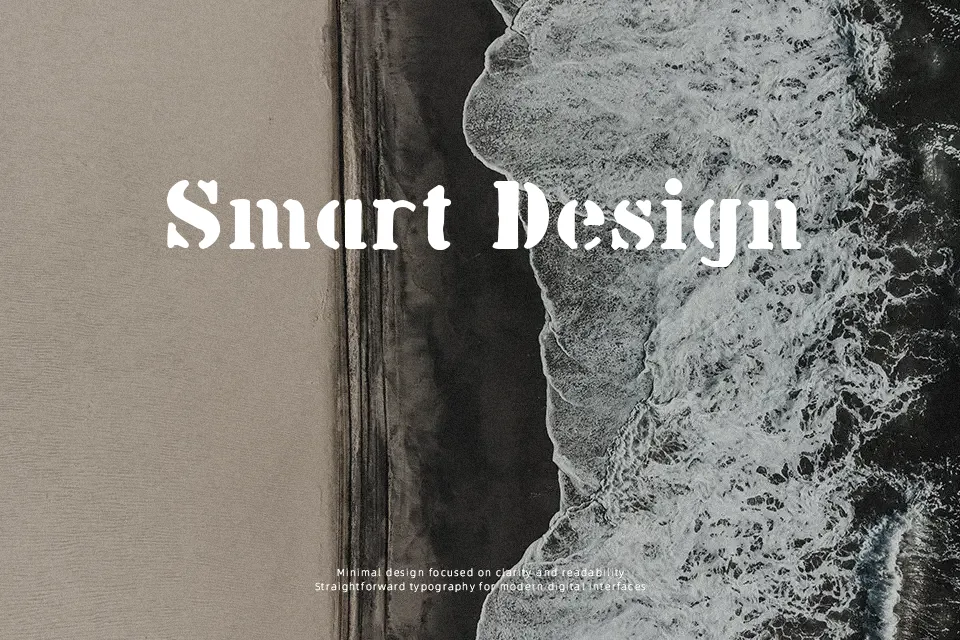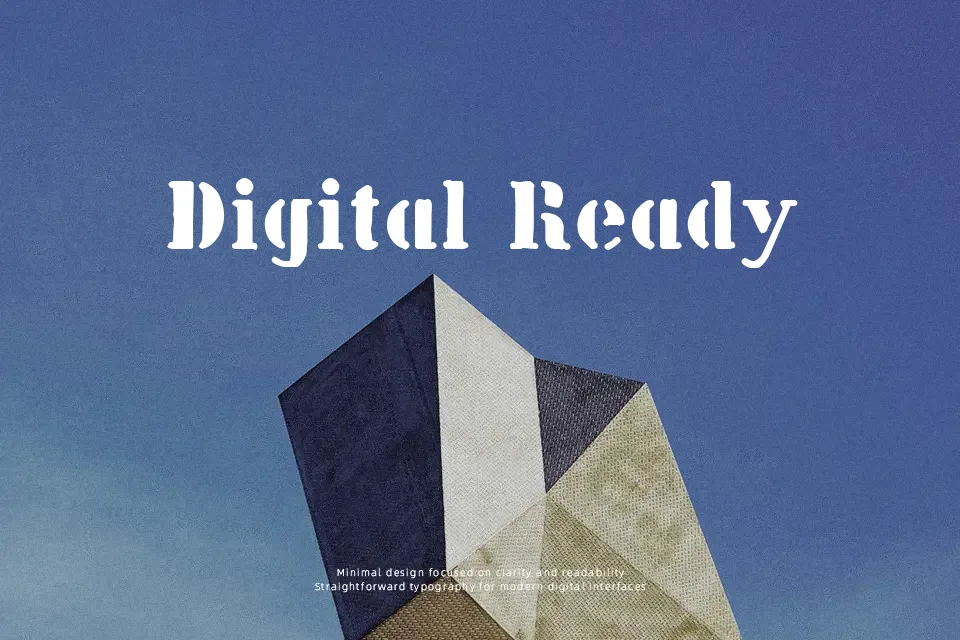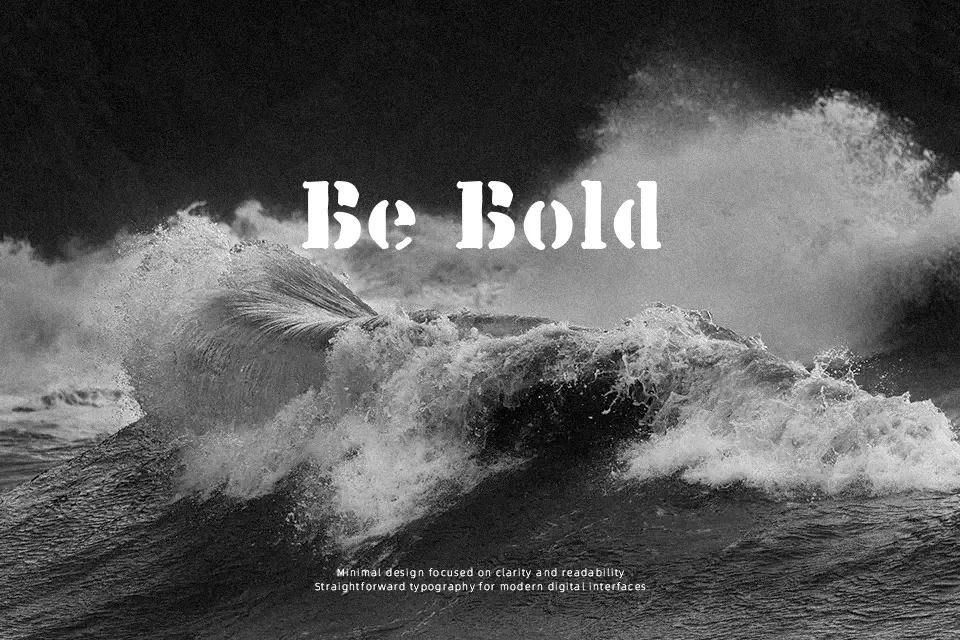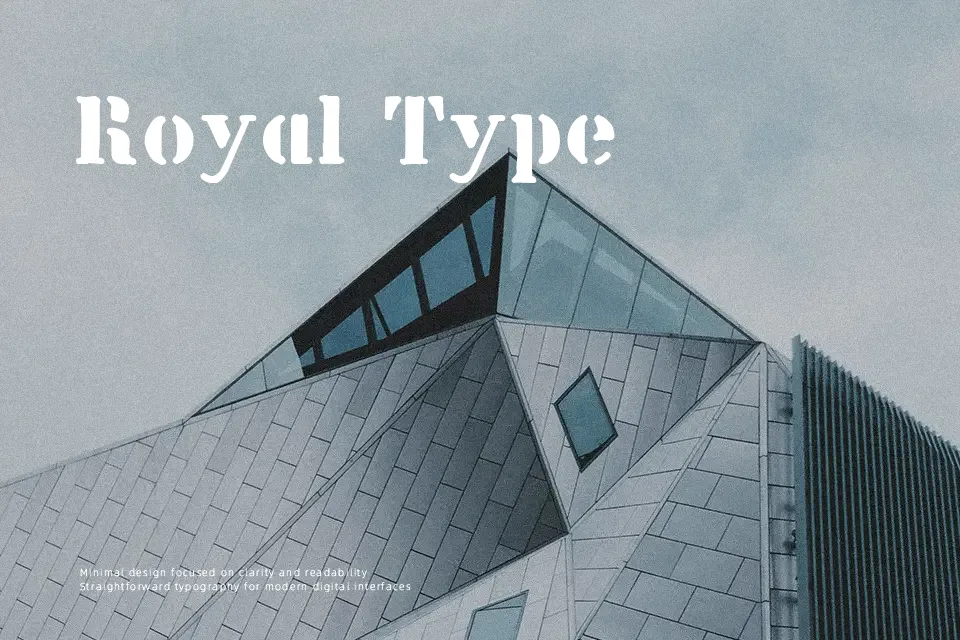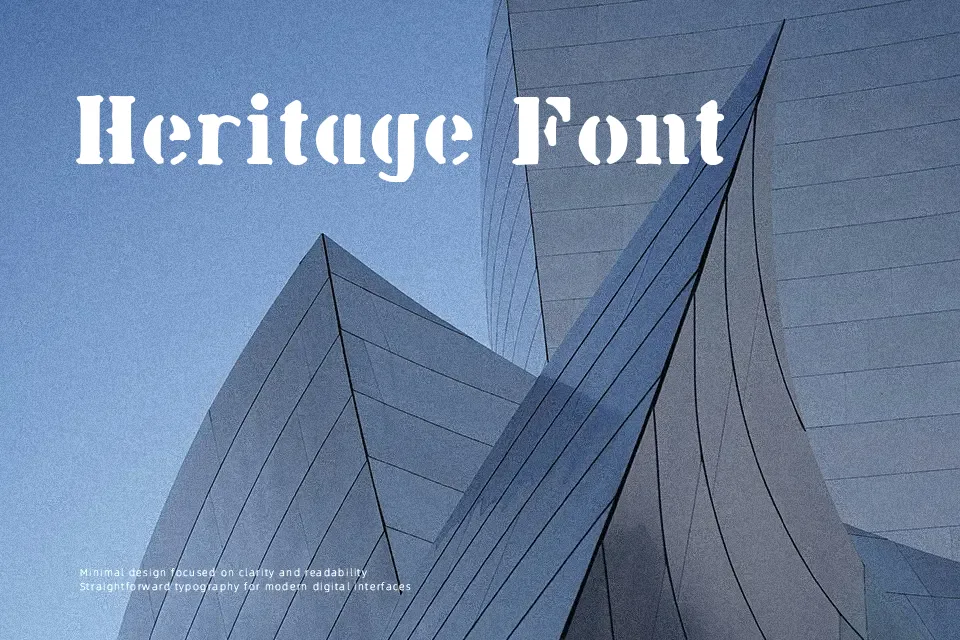
Billie Kid Font
Designed by JOEBOB graphics
Billie Kid is a distinctive stencil font that immediately catches the eye with its raw, handcrafted appearance. Created by simulating a marker pushed firmly through stencil holes, it features slightly irregular strokes, bold weight, and condensed spacing. The overall impression is rugged and casual, delivering a strong grunge-inspired aesthetic. This typeface excels in high-impact scenarios like underground music gig posters, utilitarian product packaging, and streetwear apparel branding. Its textured letters provide an authentic military or DIY vibe that cleaner typefaces often lack. However, due to its distressed nature and interrupted letterforms, Billie Kid struggles with legibility at smaller sizes. It falls short for extensive body text or corporate documents where crisp clarity is essential.
Best For: Underground music festival posters, Utilitarian product packaging, Streetwear apparel branding
Not Ideal For: Extensive body text, Corporate or formal documents, Minimalist digital interfaces
Perfect for advertising, branding, and headline, with a bold and display style.